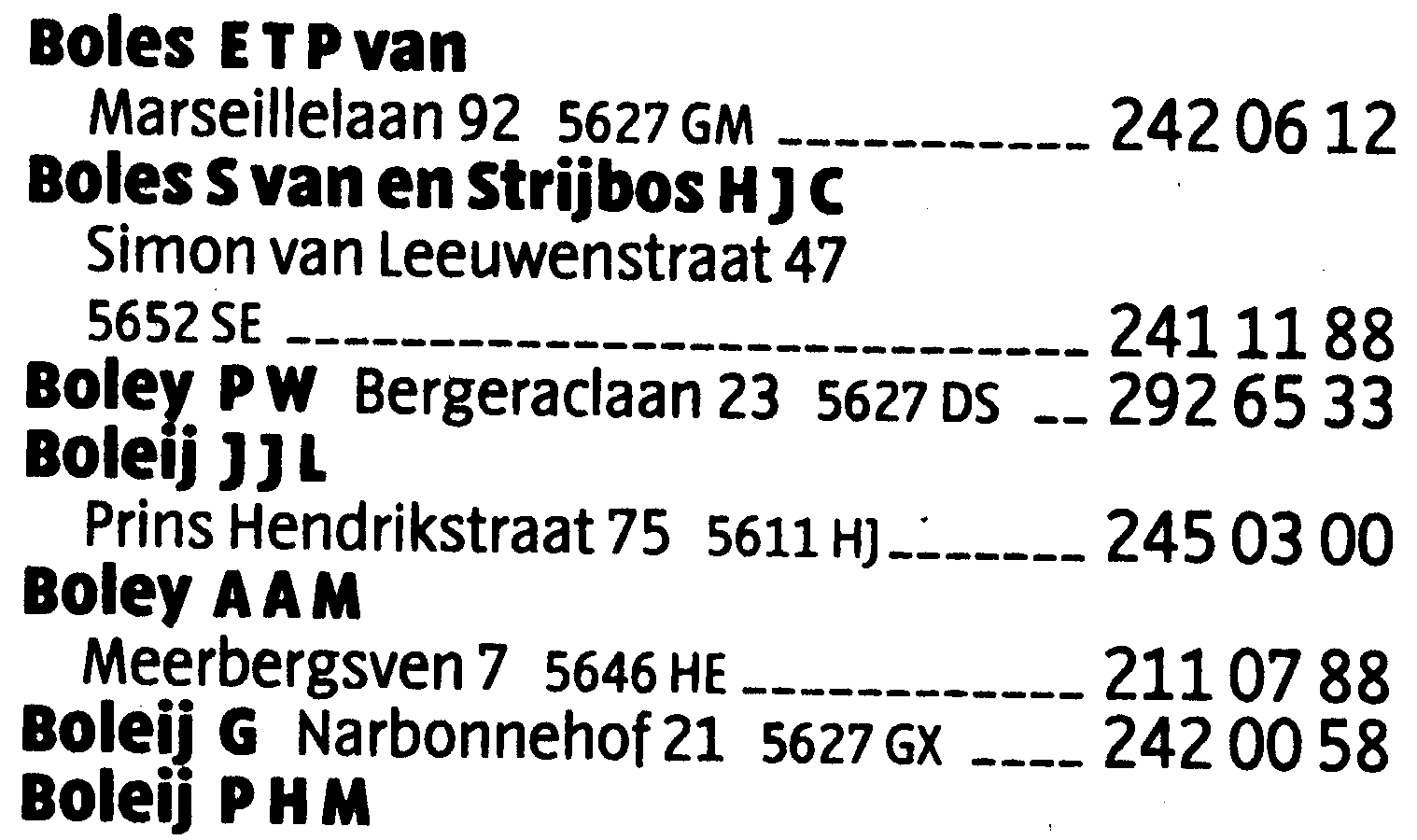
You can also see Telefont in the book "Haagse Letters".
Also: Apparently there was coverage of it in an issue of "Typographic" by the Society of Typographic Designers: issue 38-39, Spring/Summer 1990. This issue also covers three other phone book typefaces: Colin Banks about the British books, Jolijn van de Wouw about the Dutch books (1980s), and Ian McLaren about the French telephone book on Viditel (a precursor of the web).
To me, Telefont is a nice design (except for that frivolous "f"), but it's missing trapping. The explanation I've heard of why that's the case is that it was a rush job.
Last time I met Martin he was handing out actual pages torn out of the phone book as a promotion for the face. Which was pretty cool. I still must have mine somewhere in my archives. Though I like the face, I agree about the trapping Hrant.
For the benefit of others, here's a rough scan sent to me by Karel van der Waarde a while back:
You can also see Telefont in the book "Haagse Letters".
Also:
Apparently there was coverage of it in an issue of "Typographic" by the Society of Typographic Designers: issue 38-39, Spring/Summer 1990. This issue also covers three other phone book typefaces: Colin Banks about the British books, Jolijn van de Wouw about the Dutch books (1980s), and Ian McLaren about the French telephone book on Viditel (a precursor of the web).
To me, Telefont is a nice design (except for that frivolous "f"), but it's missing trapping.
The explanation I've heard of why that's the case is that it was a rush job.
There's a sample of Telefont (List & Text) in a article at Typotheque:
"My type design philosophy" by Martin Majoor himself.
Last time I met Martin he was handing out actual pages torn out of the phone book
as a promotion for the face. Which was pretty cool. I still must have mine somewhere
in my archives. Though I like the face, I agree about the trapping Hrant.